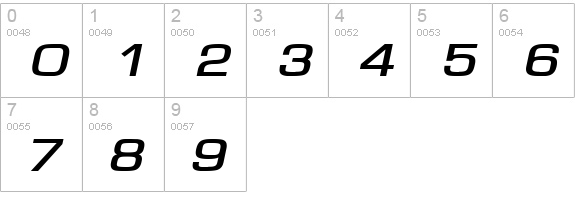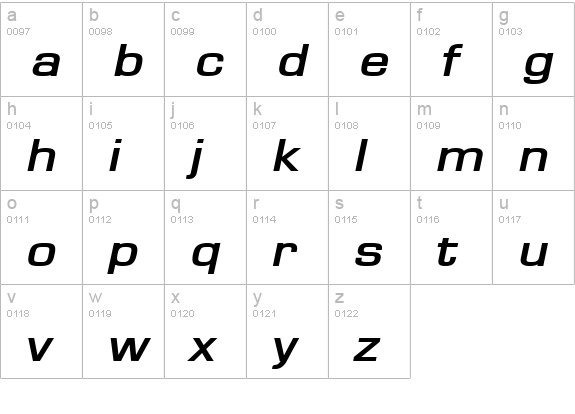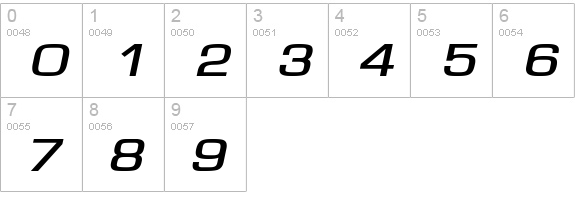
Eurasia Extended BoldItalic Font Details
Eurasia Extended BoldItalic is a distinctive, extended-width variant in the Eurasia typeface family \xE2\x80\x94 well suited to design and typography projects.
Eurasia Extended BoldItalic font is a striking and versatile typeface that exudes elegance and sophistication. With its bold yet graceful curves and sleek design, this font is perfect for making a bold statement in any project. Whether you're designing a magazine spread, creating a logo, or crafting a stylish invitation, Eurasia Extended BoldItalic font will elevate your work to the next level. And the best part? Eurasia Extended BoldItalic font is available for free download at FontsMarket.com. Simply visit the website, download the font, and start using it in your designs today. Don't miss out on this incredible opportunity to add a touch of class to your projects with Eurasia Extended BoldItalic font.